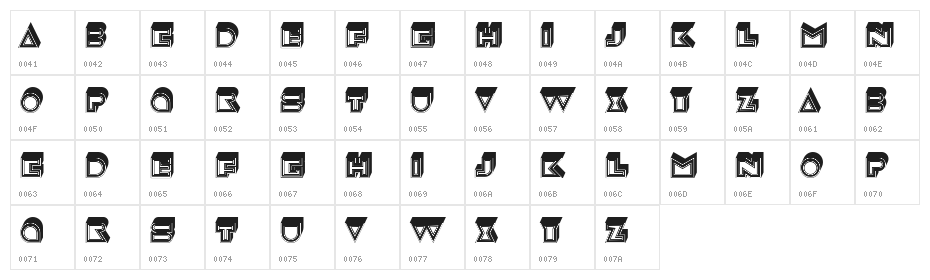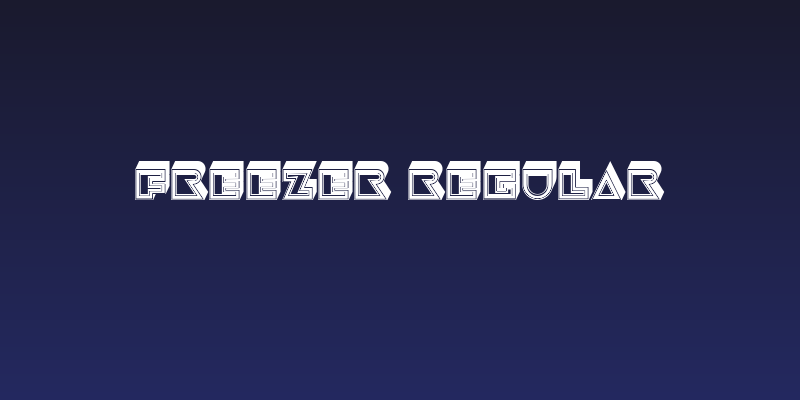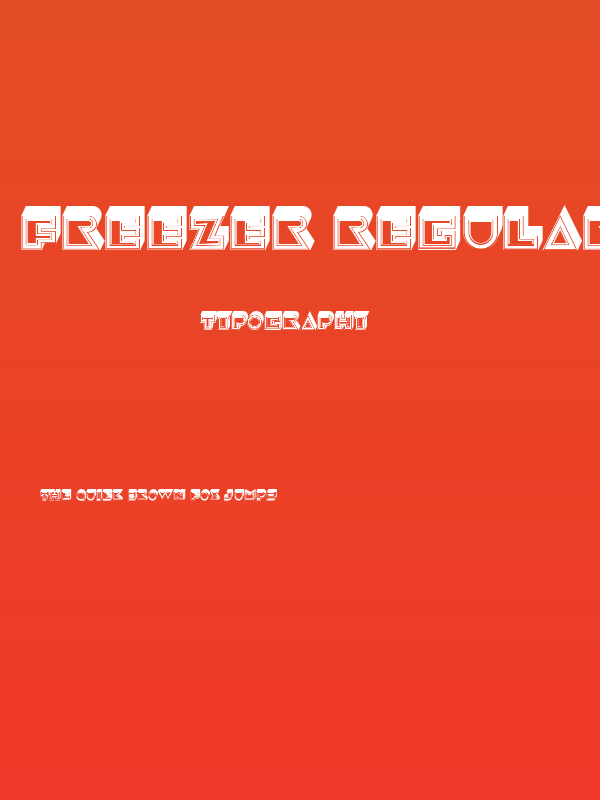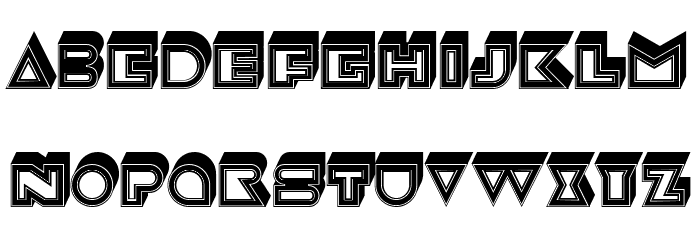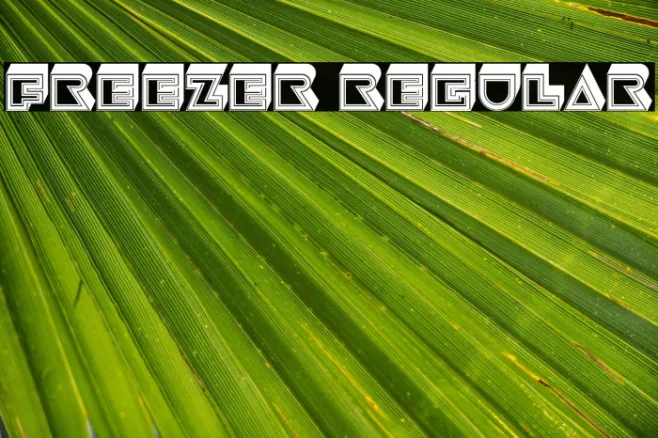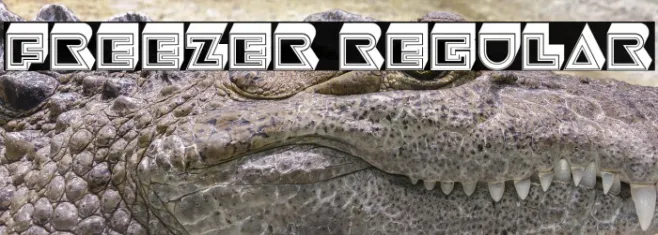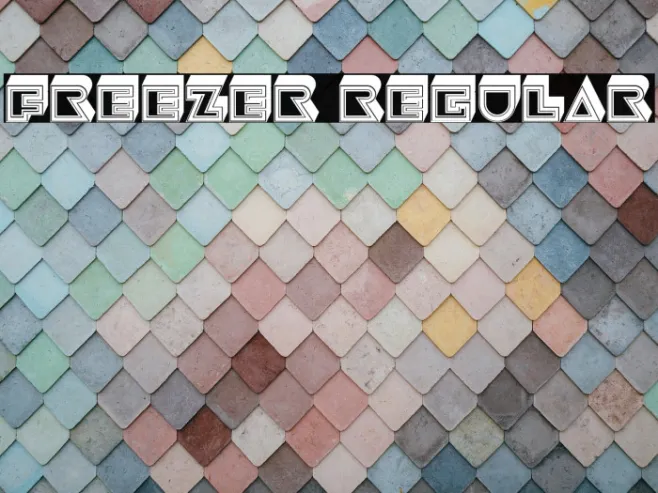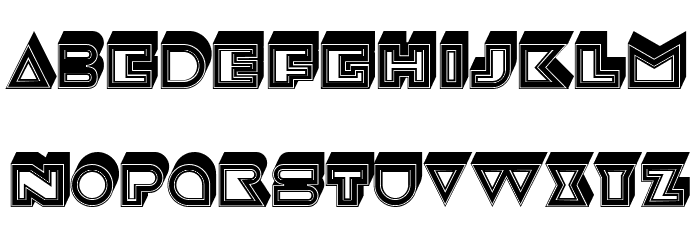
Freezer Regular Font
Freezer Regular Description
This font features a bold, geometric design with a distinct three-dimensional effect. The letters are constructed with sharp angles and a layered appearance, creating a sense of depth and modernity. The uppercase and lowercase letters maintain a consistent style, emphasizing the font's unique structure. The numbers and special characters are designed to match the bold and angular aesthetic, making them suitable for attention-grabbing designs. The font's overall look is futuristic and dynamic, ideal for projects that require a strong visual impact.
FREEZER-REGULAR UPPERCASE
FREEZER-REGULAR LOWERCASE
FREEZER-REGULAR OTHER CHARS
| Overall Style | Futuristic, Dynamic |
| Proposed Projects | Ideal for posters, video game graphics, futuristic branding, and sci-fi themed projects. |